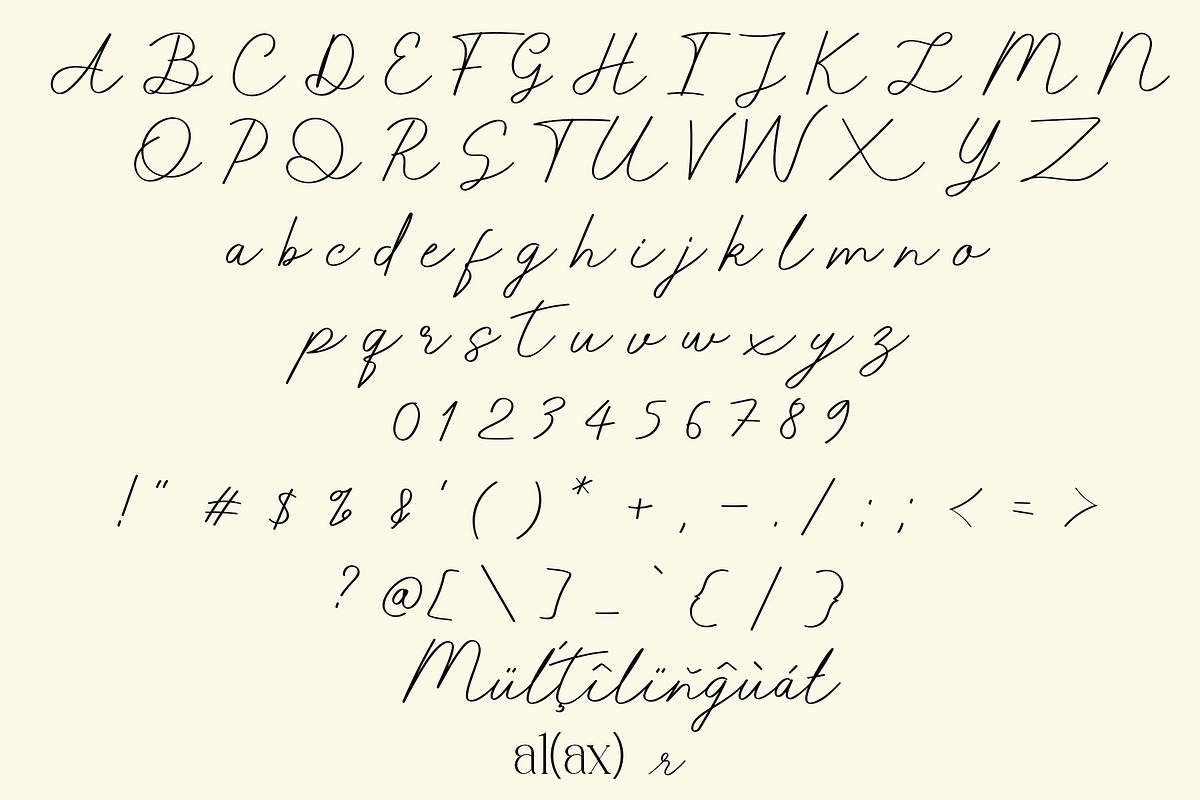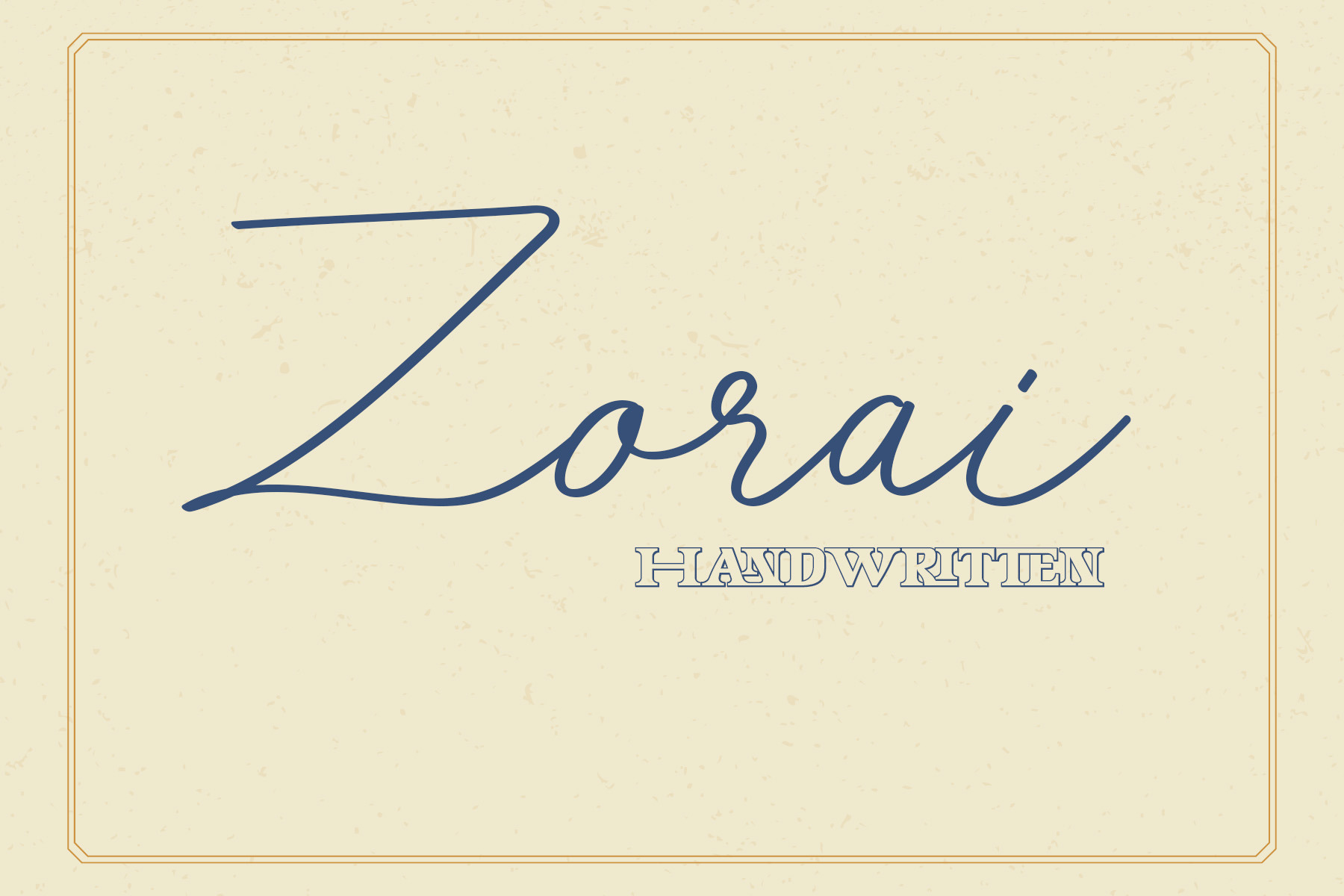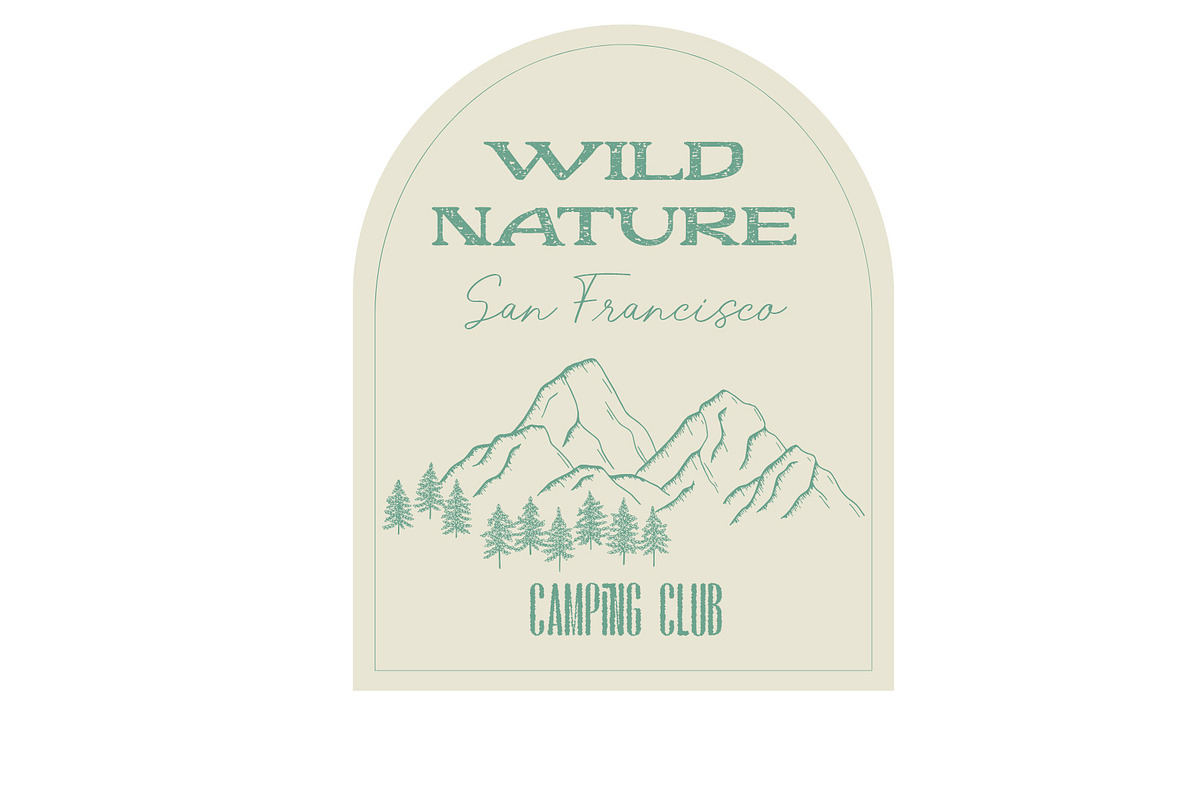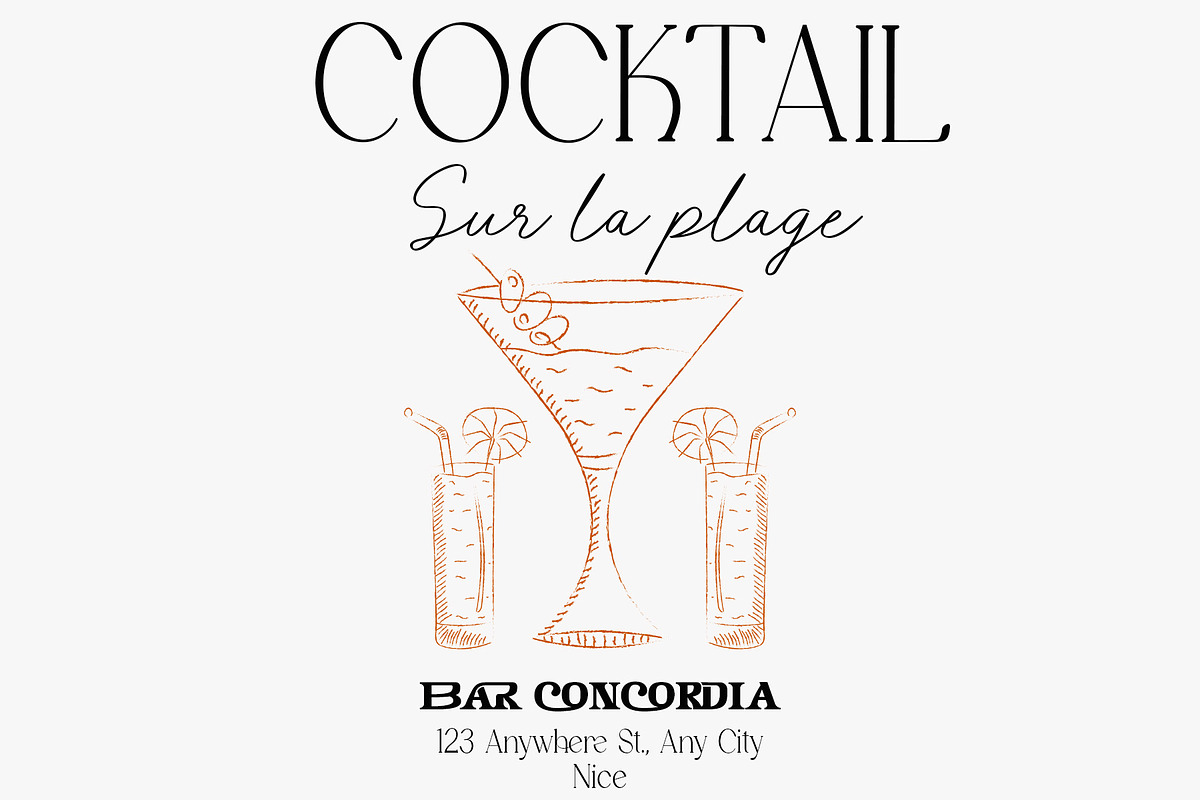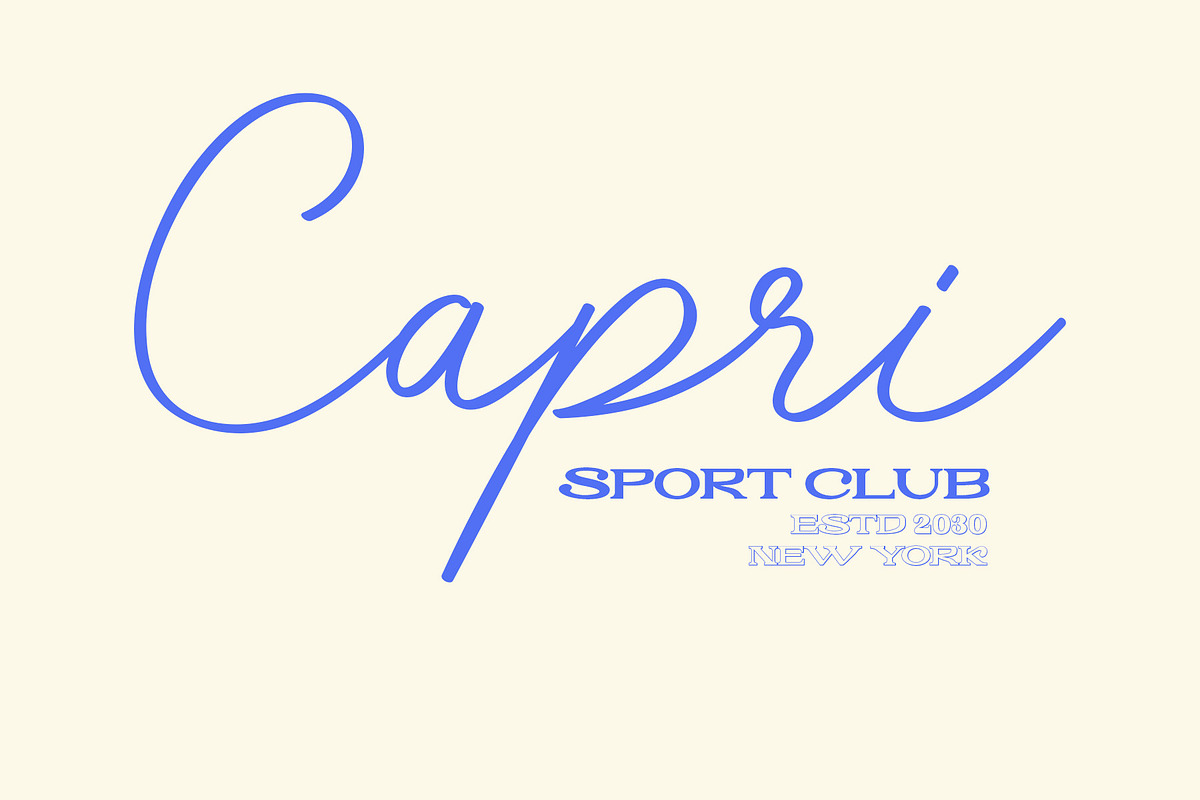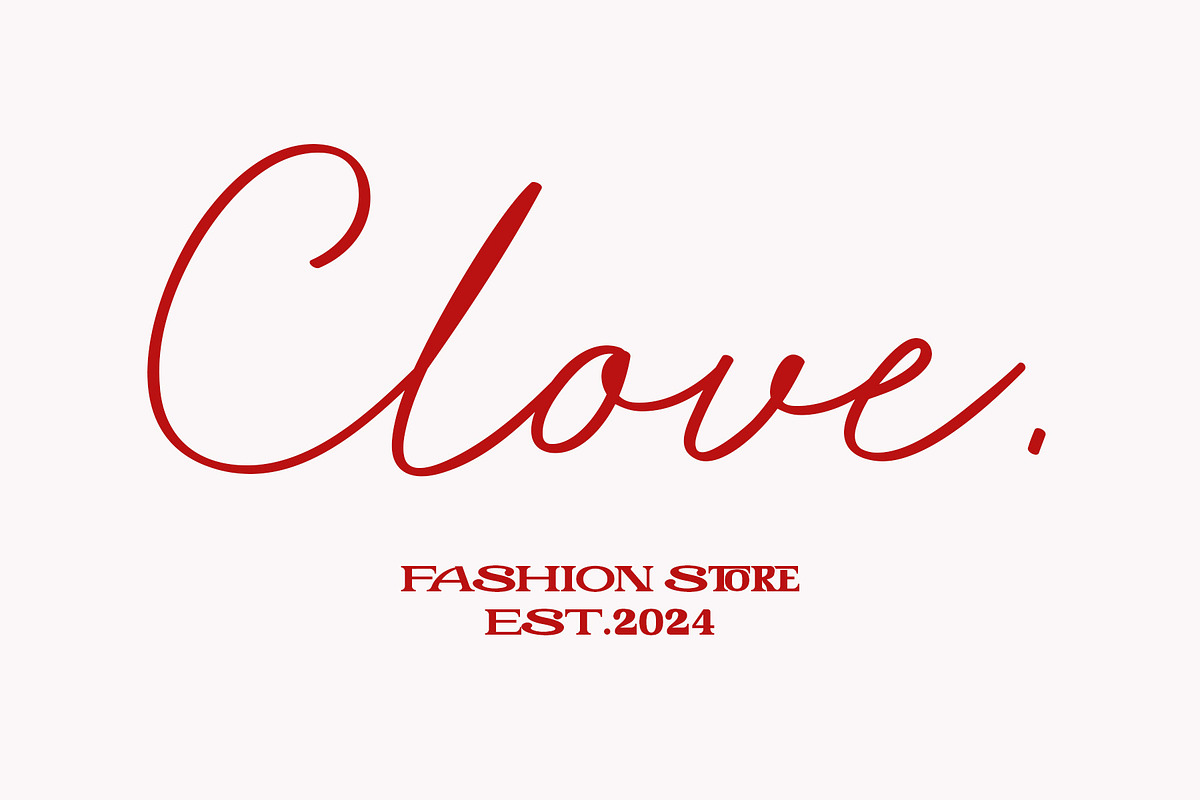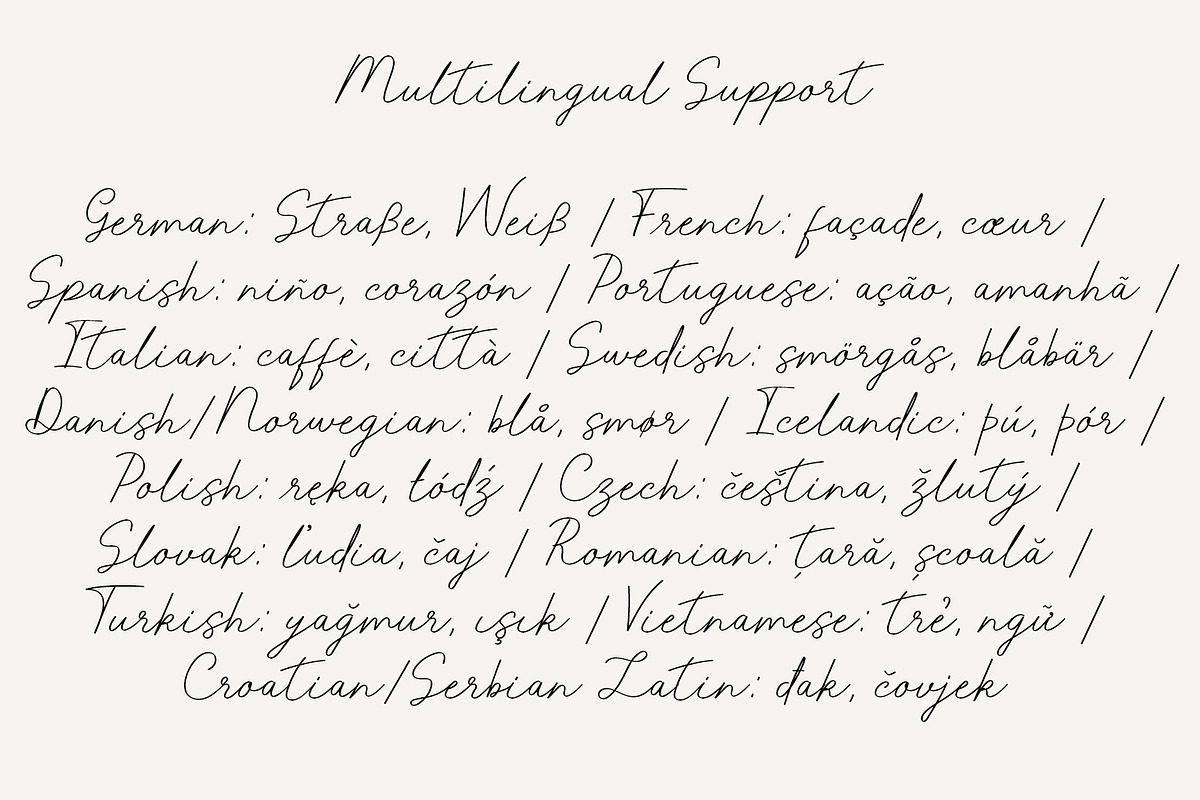
Zorai - Handwritten Font
Introducing Zorai!
Zorai is a smooth and natural handwritten font inspired by elegant pen strokes, bringing a warm, friendly, and expressive feel to your designs.
With flowing letterforms and organic connections, Zorai is perfect for personal branding, wedding projects, social media, quotes, logos, invitations, packaging, and creative layouts that need a soft and authentic touch. Zorai comes with extended Latin support, making it suitable for multilingual use. It’s an ideal choice for modern handwritten designs that feel personal, gentle, and full of character.